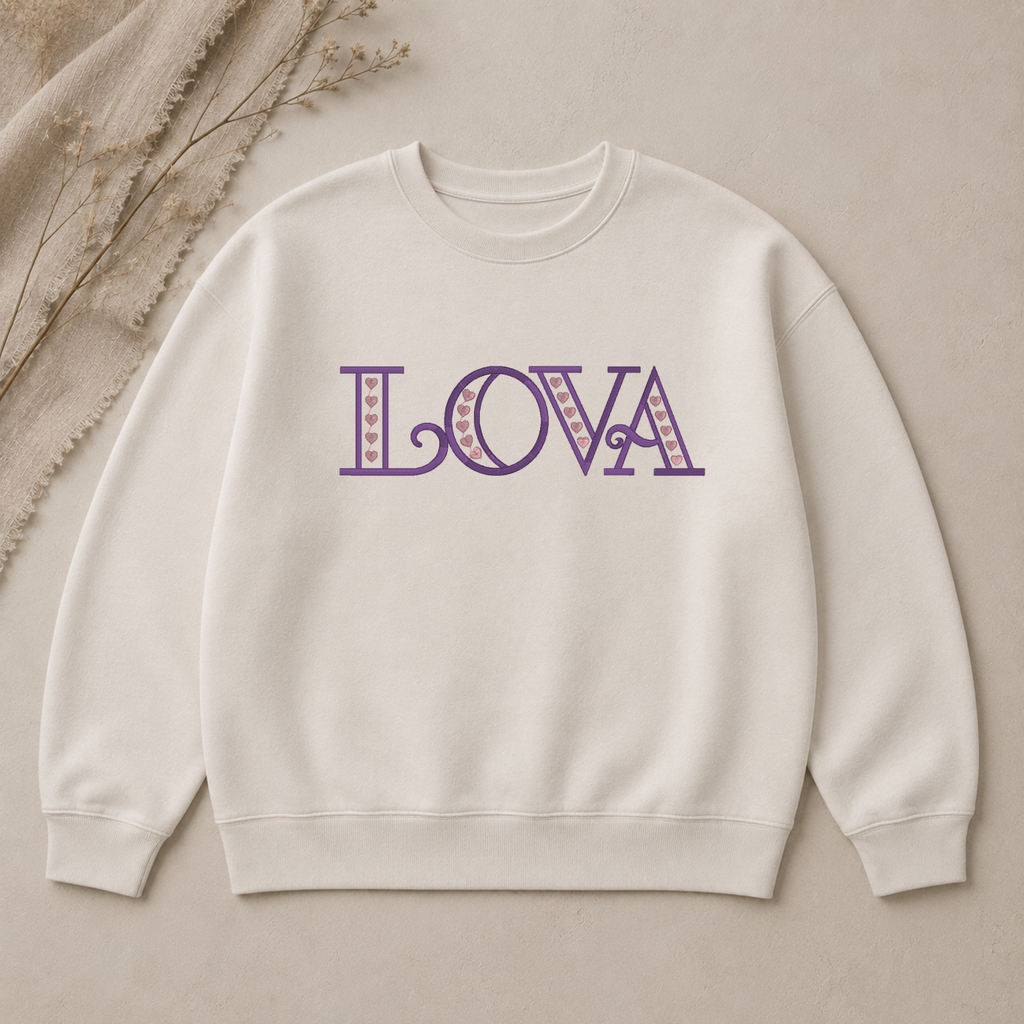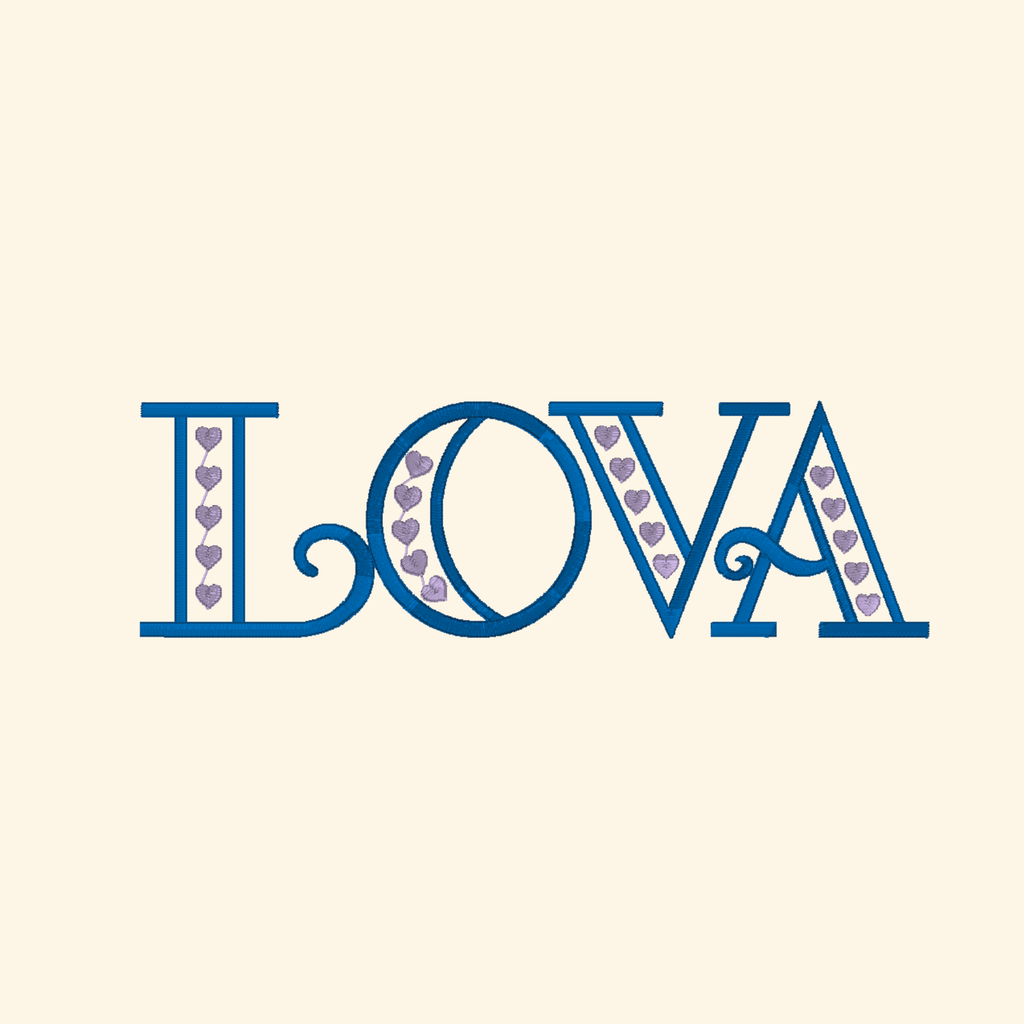
BX font - Lova embroidery monogram, Hearts font, Dual color machine embroidery font
Take your projects to the next dimension with Lova - professional machine embroidery alphabet! Specially digitized for high-impact results, this font is the perfect choice for creating any item that requires embroidery.
Full Alphabet (uppercase A–Z)